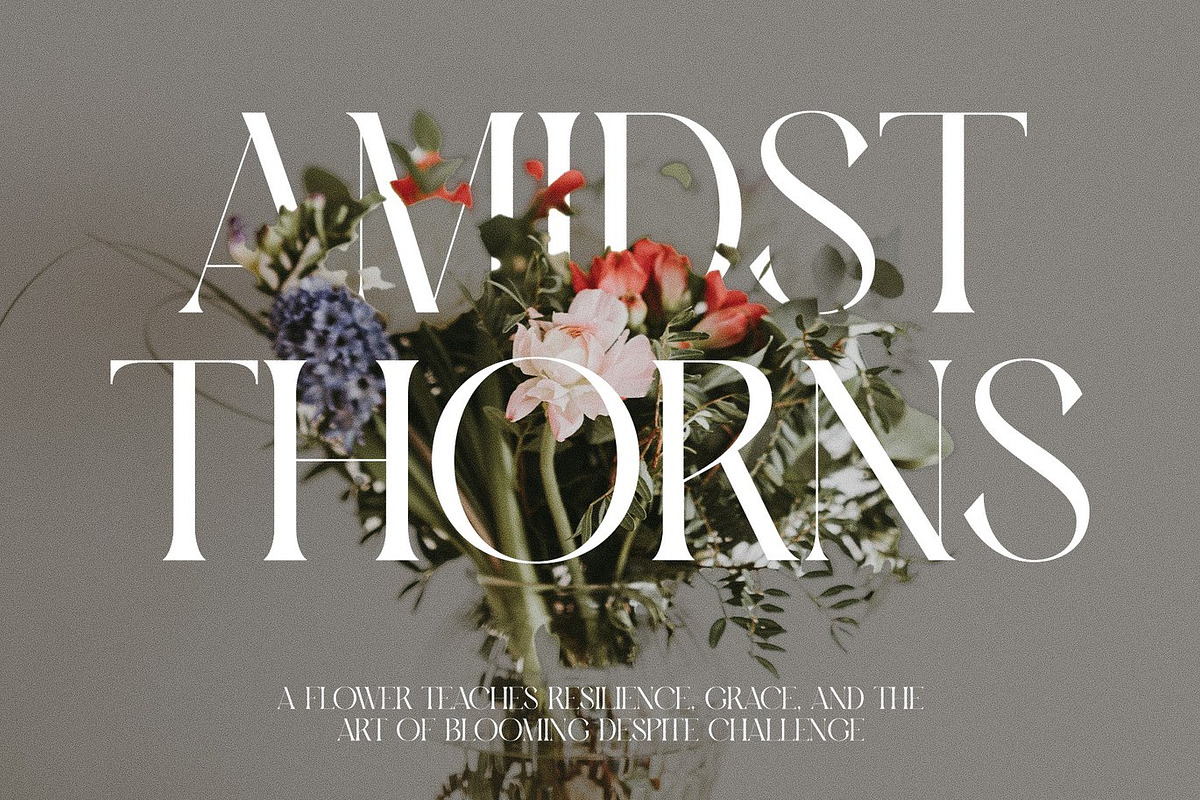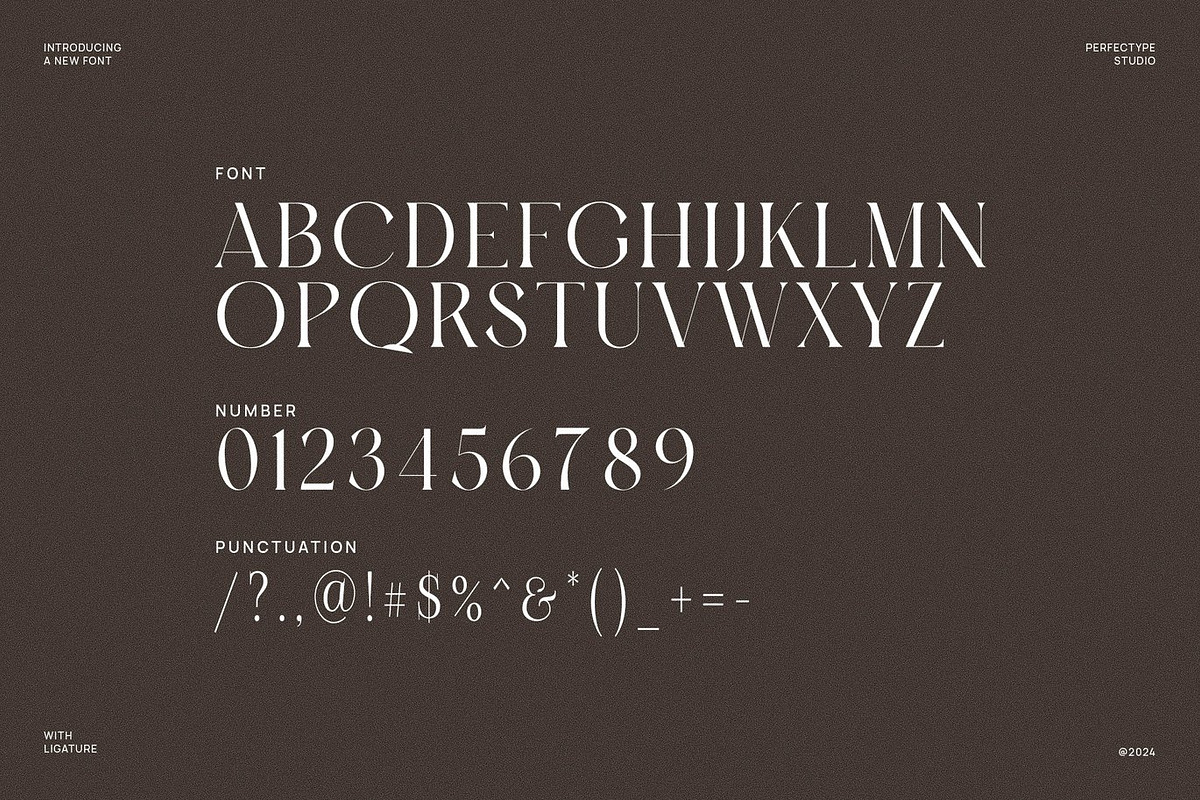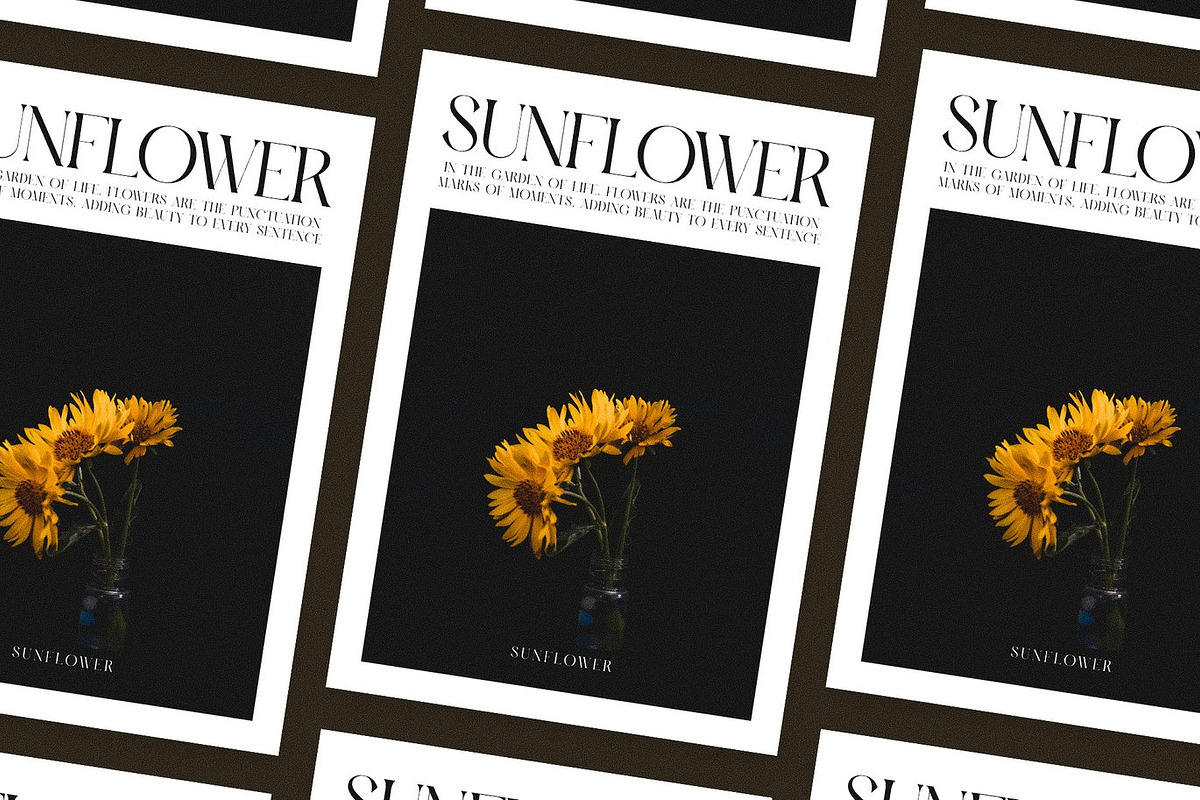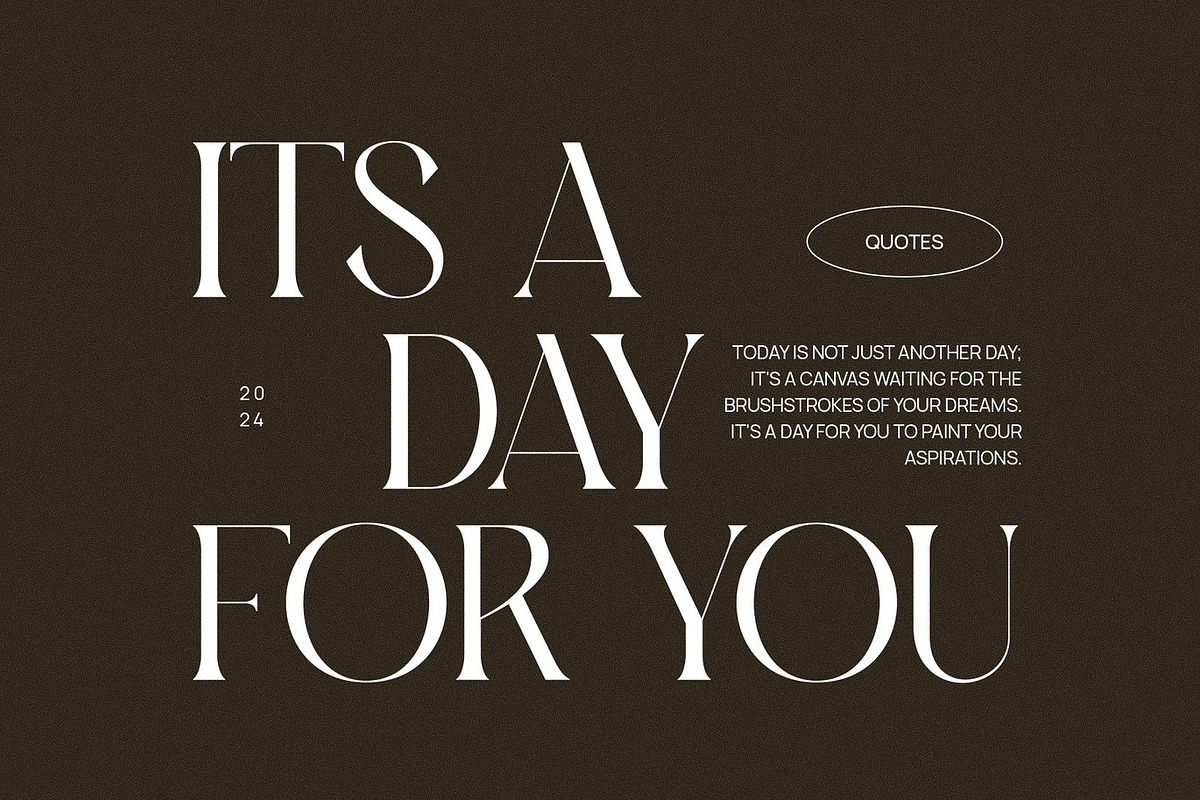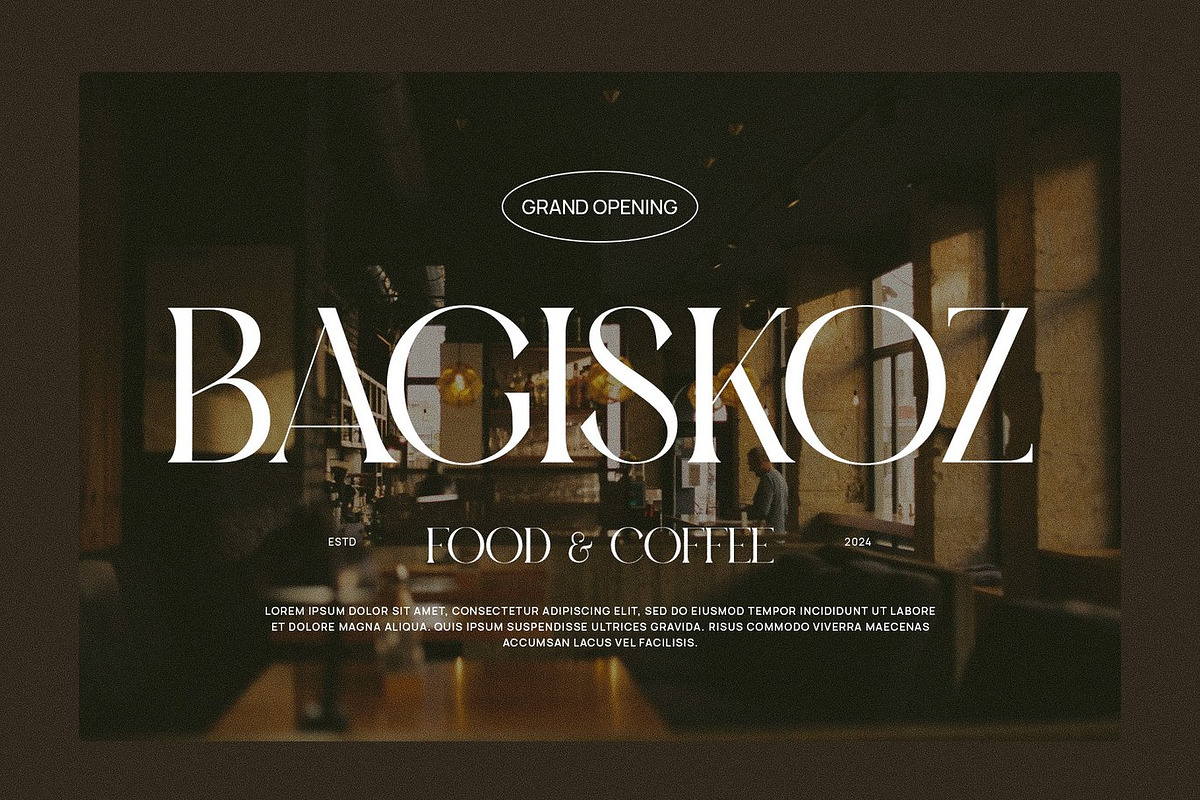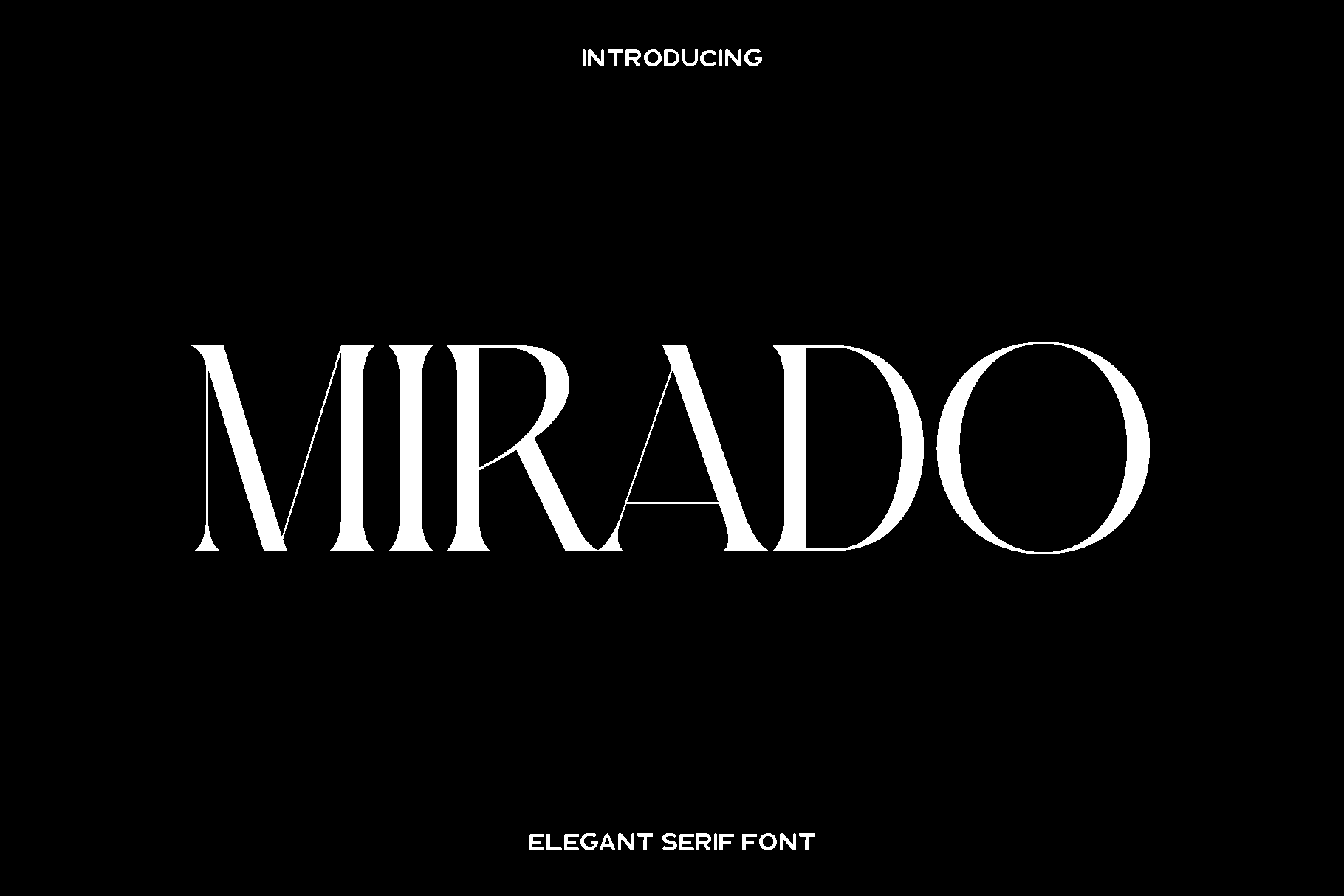
Mirado - Classic Serif Font
Mirado is a unique and refined serif typeface created for designers who seek elegance, sophistication, and modern charm in their typography. Inspired by the timeless beauty of classic serif lettering, Mirado blends graceful curves with clean contemporary detailing, resulting in a luxurious font that enhances any visual project. Its carefully crafted shapes and balanced proportions offer a polished look that feels both artistic and professional.
Mirado shines in branding and logo design, where its elegant character forms create a strong and memorable identity. It is perfect for wedding materials, social media graphics, advertisements, product packaging, photography watermarks, invitations, and sophisticated editorial layouts. The font’s high readability ensures it performs beautifully in both display and text settings, adapting seamlessly to a wide range of creative applications.
This typeface feels classy, modern, and stylish, making it ideal for designers who want to elevate their work with a touch of luxury. Every detail in Mirado has been thoughtfully designed to bring harmony and refinement to your compositions, helping your projects stand out with confidence and beauty.
• Standard character set
• Numerals and punctuation
• Accented characters for Western European languages